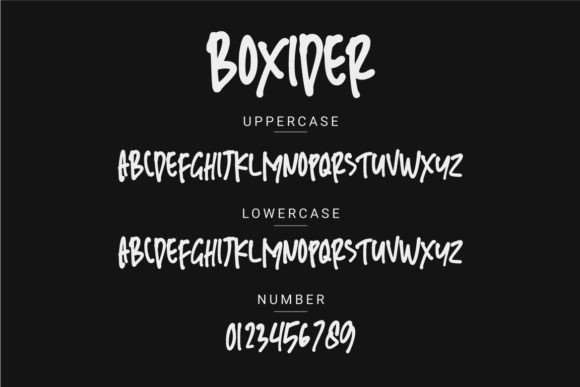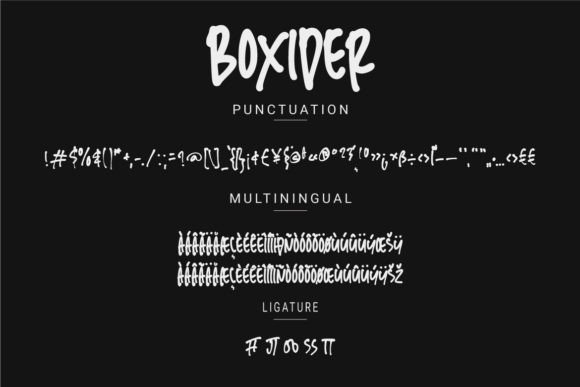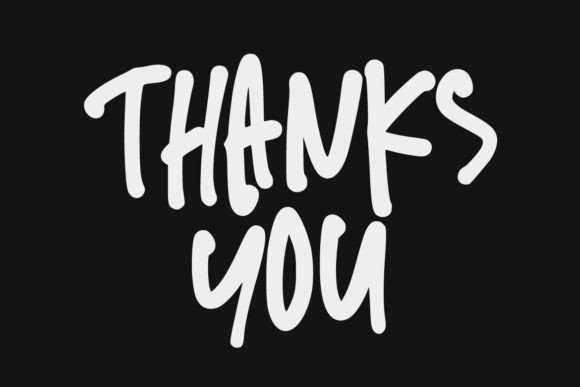
The Bold and Beautiful Boxider Font: A Designer’s Dream
I still remember the design project that led me to discover the Boxider font. I was working on a branding campaign for a trendy new skateboard shop, and I needed a font that would capture the edgy, youthful vibe of the brand. After hours of scrolling through font libraries and testing out different options, I stumbled upon Boxider – and it was love at first sight! 💕
The bold, irregular strokes and graffiti-inspired aesthetic of Boxider instantly resonated with the shop’s rebellious spirit. I knew right then and there that I had found the perfect font for the job. But what really sets Boxider apart, and why I’m excited to share it with you today, is its versatility and unique character.
An Honest Review of Boxider
What I Love About Boxider ✨
- ✅ Unique Aesthetic: Boxider’s bold, edgy look is perfect for designs that need a bit of attitude.
- ✅ Handmade Feel: The irregular strokes and varying letter heights give it a handmade, almost painted quality that adds a lot of character.
- ✅ Attention-Grabbing: This font is designed to stand out, making it perfect for headlines, titles, and any text that needs to grab attention.
- ✅ Contemporary Vibe: Boxider’s modern design ensures it feels fresh and current, suitable for a wide range of contemporary projects.
- ⚠️ Legibility at Small Sizes: Due to its bold and irregular strokes, Boxider can become difficult to read at very small sizes. It’s best used for larger text or headlines.
- ⚠️ Limited Formality: The edgy nature of Boxider means it might not be suitable for more formal or traditional projects. It’s perfect for creative and bold designs but might not fit a conservative brand image.
The Boxider font was inspired by the urban landscapes and street art that dominate city walls. Its designer aimed to capture the raw energy and rebellious spirit of graffiti, translating it into a digital format that’s both bold and beautiful. The result is a font that’s perfect for any project that needs a bit of edge.
Q: What type of projects is Boxider best suited for?
A: Boxider is ideal for creative and bold designs such as posters, flyers, branding for trendy businesses, and any project that needs to stand out.
Q: Is Boxider a difficult font to read?
A: Boxider’s bold and irregular strokes make it more suitable for larger text sizes. It can be less readable at very small sizes, so it’s best used for headlines and titles.